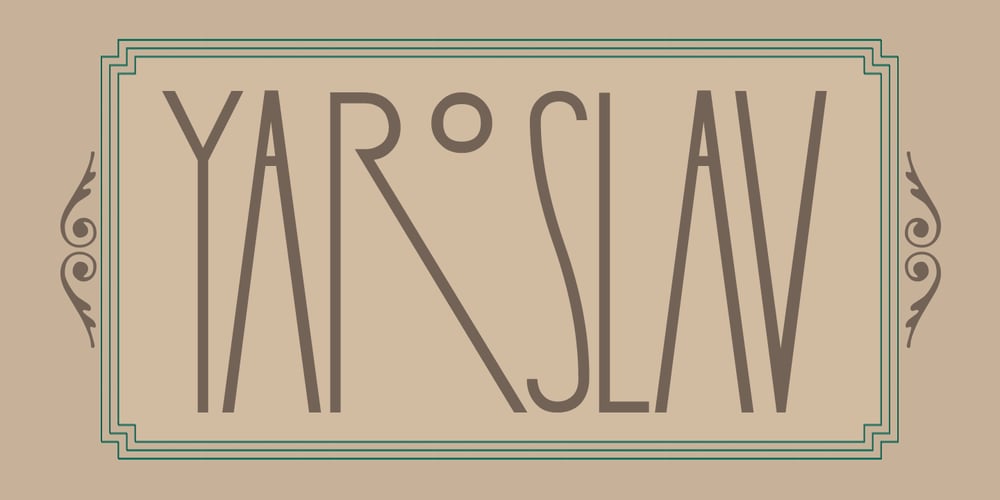
Yaroslav Font Family was designed by Todd Dever and published by Cool Fonts. Yaroslav contains 1 styles and family package options. My friend in the Czech Republic sent me a card with some hand lettering that was similar to this tall headline font. It has a funky yet elegant appearance. Works nice for Art Deco too.